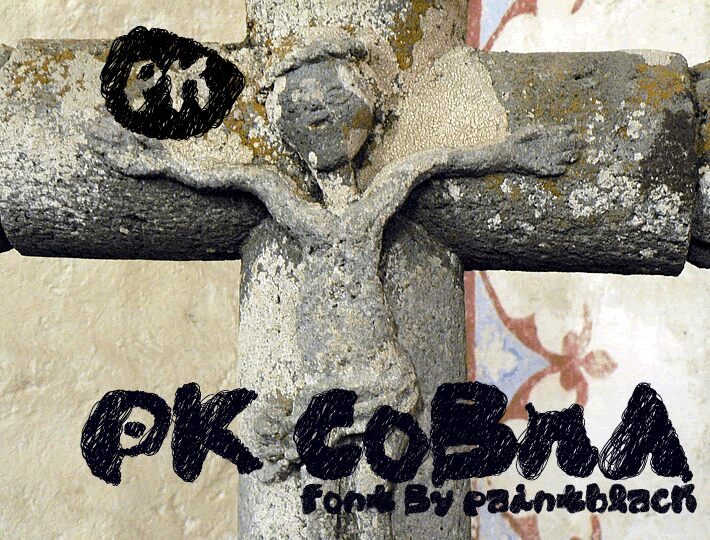
PK CoBrA by paintblack is a free graffiti font with swollen, tightly-packed letters and the restless outline of a hurried marker tag, with blunt curves pushing into one another. The surface looks repeatedly worked over by hand.
Posters are its strongest setting, especially for underground music, streetwear campaigns, and youth events built around raw urban graphics. The lettering reads almost like an image rather than neutral type, with irregular joins and dark, crowded shapes that can become the rough central tag on concert bills, album artwork, or limited-edition merchandise prints.